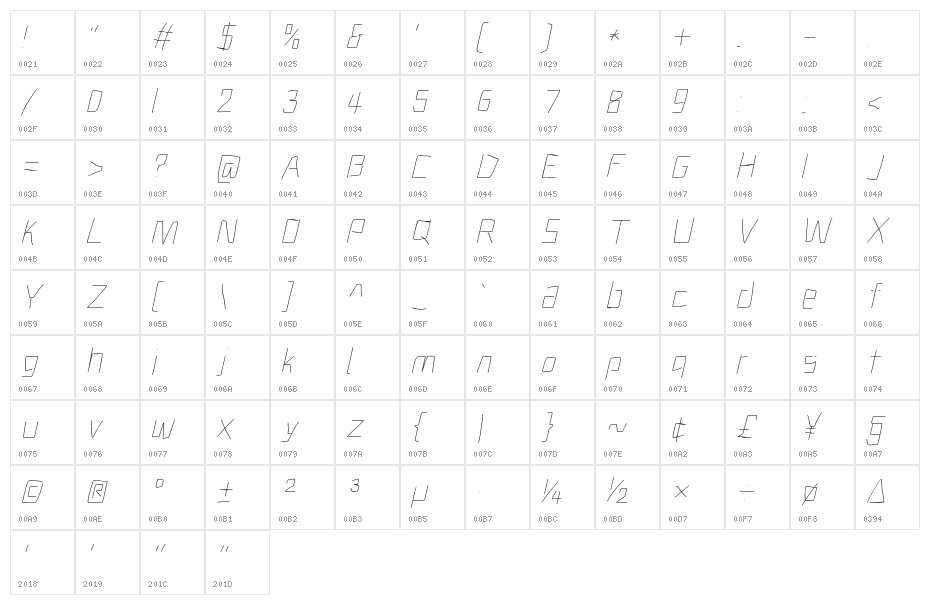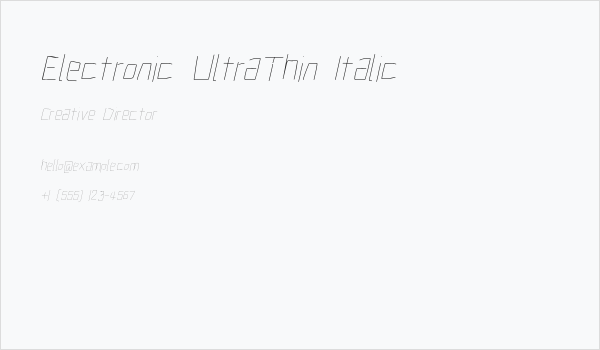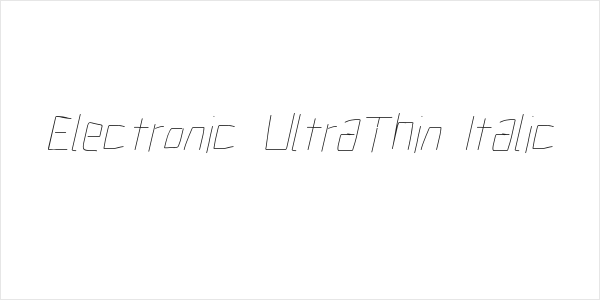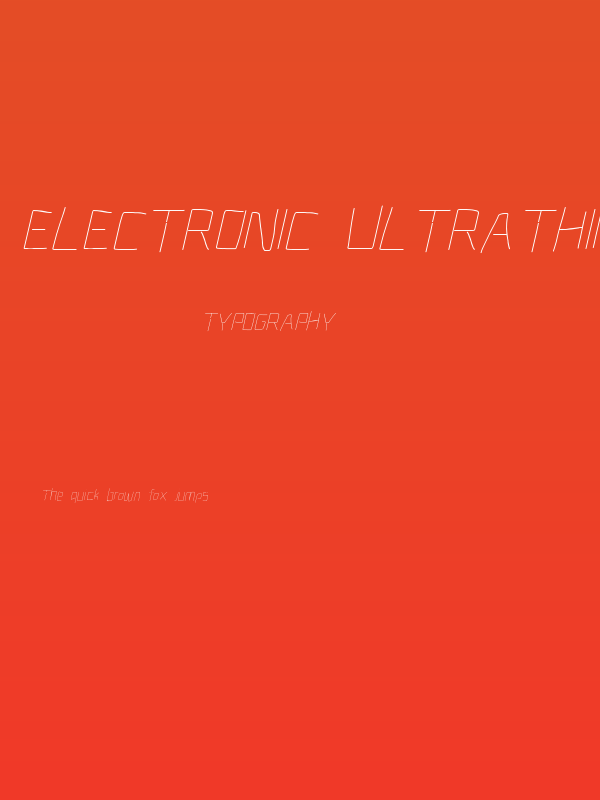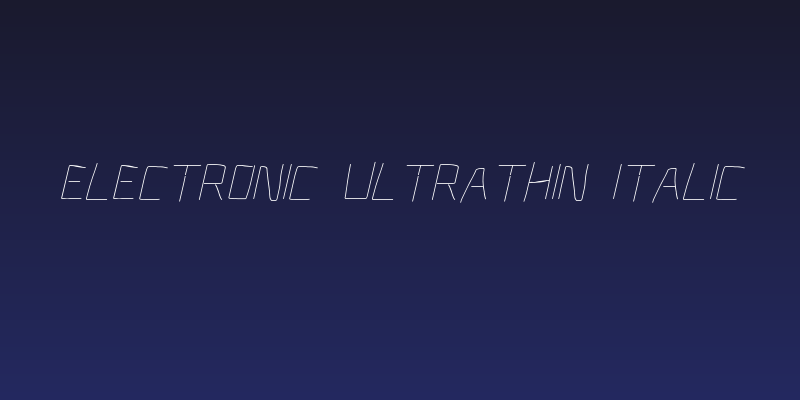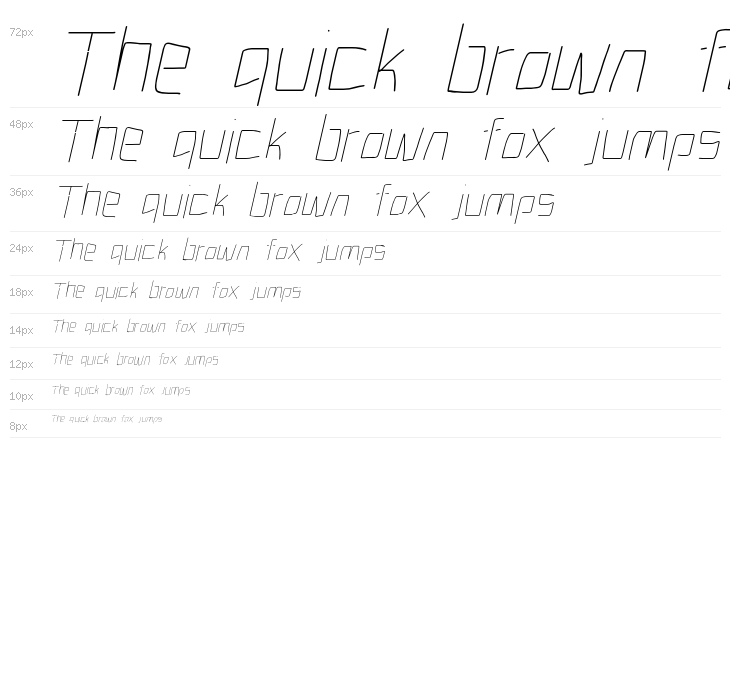
Electronic UltraThin Italic Font
Electronic UltraThin Italic Description
This font features an ultra-thin, italicized style with a modern, electronic feel. The characters are sharply angled, giving a futuristic and sleek appearance. The uppercase letters maintain a consistent height, while the lowercase letters are slightly smaller, maintaining readability. Numbers and special characters are designed to match the overall aesthetic, with clean lines and minimalistic design. The font's thin strokes and italic slant create a sense of motion and dynamism, making it suitable for tech-oriented projects.
| Use Case | Logos, Headlines, Digital Interfaces |
| Proposed Projects | Ideal for tech branding, futuristic designs, digital interfaces, and modern advertising. |